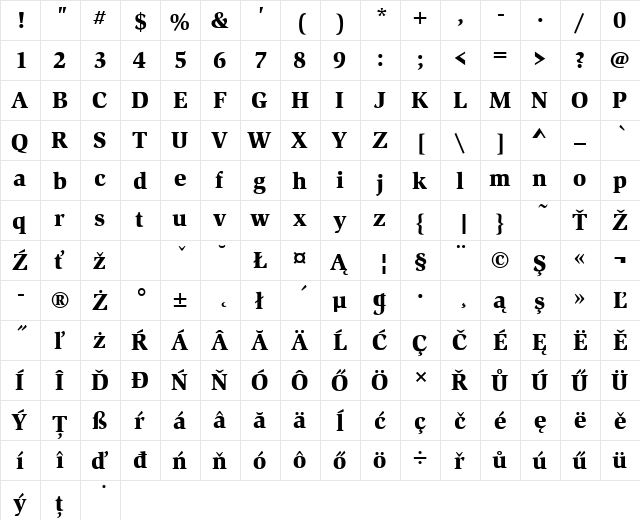
SlimbachItcTEEBla Regular Font Preview
SlimbachItcTEEBla Regular
SlimbachItcTEEBla Regular Font Details
Design Context for SlimbachItcTEEBla Typeface
SlimbachItcTEEBla offers clean, dependable letterforms without strong stylistic allegiance, making it a practical choice for designers who need flexibility.